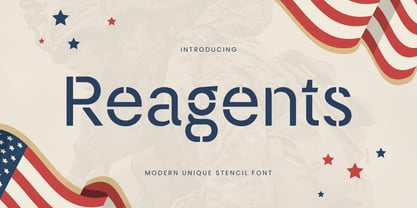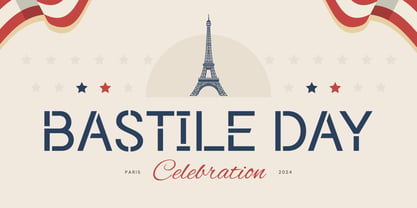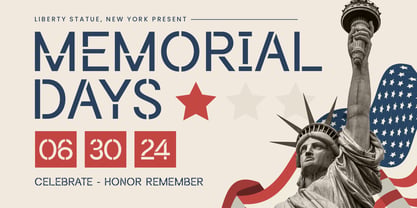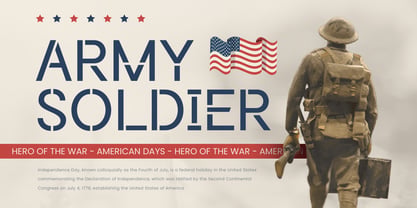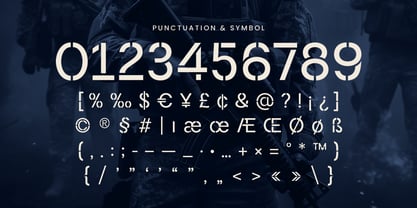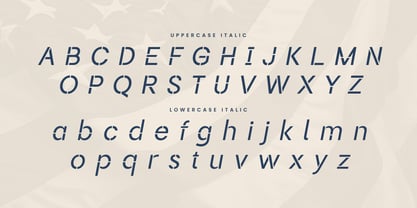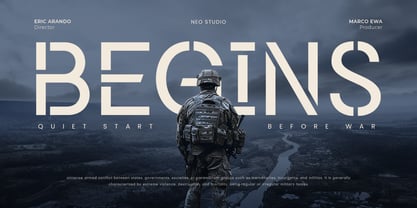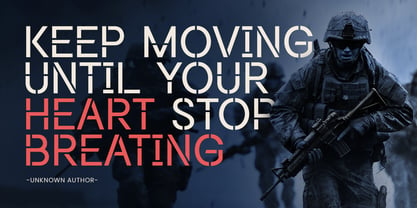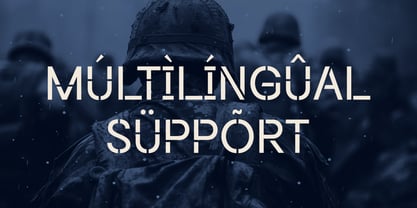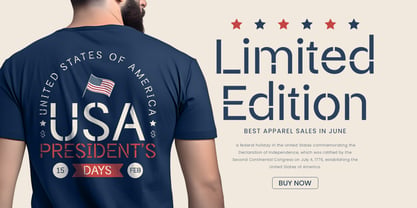
Reagents
The Reagents Font Family was designed by Zamroni Hamzah and published by Sensatype Studio. Reagents contains 2 styles and family package options. More about this family
Reagents is a modern and bold stencil font inspired by military aesthetics and clean geometric lines. Its unique stencil cuts make it a perfect choice for creating strong and memorable designs. Whether you're working on branding, posters, logos, or packaging, Reagents adds a commanding and professional touch to your projects.
The creation of Reagents draws inspiration from the precision and strength associated with military styles. It's crafted to balance sharpness with readability, making it not only visually appealing but also practical for various creative needs.
This font is ideal for designers looking to add a bold and versatile typeface to their toolkit. With multilingual support and a comprehensive character set, Reagents ensures a seamless experience in both personal and professional projects.
Reagents Stencil font ready with:
• Any Reagents characters to get creative variations
• Preview as a inspirations that you can do with Reagents font
• Ready with Lowercase and Uppercase characters